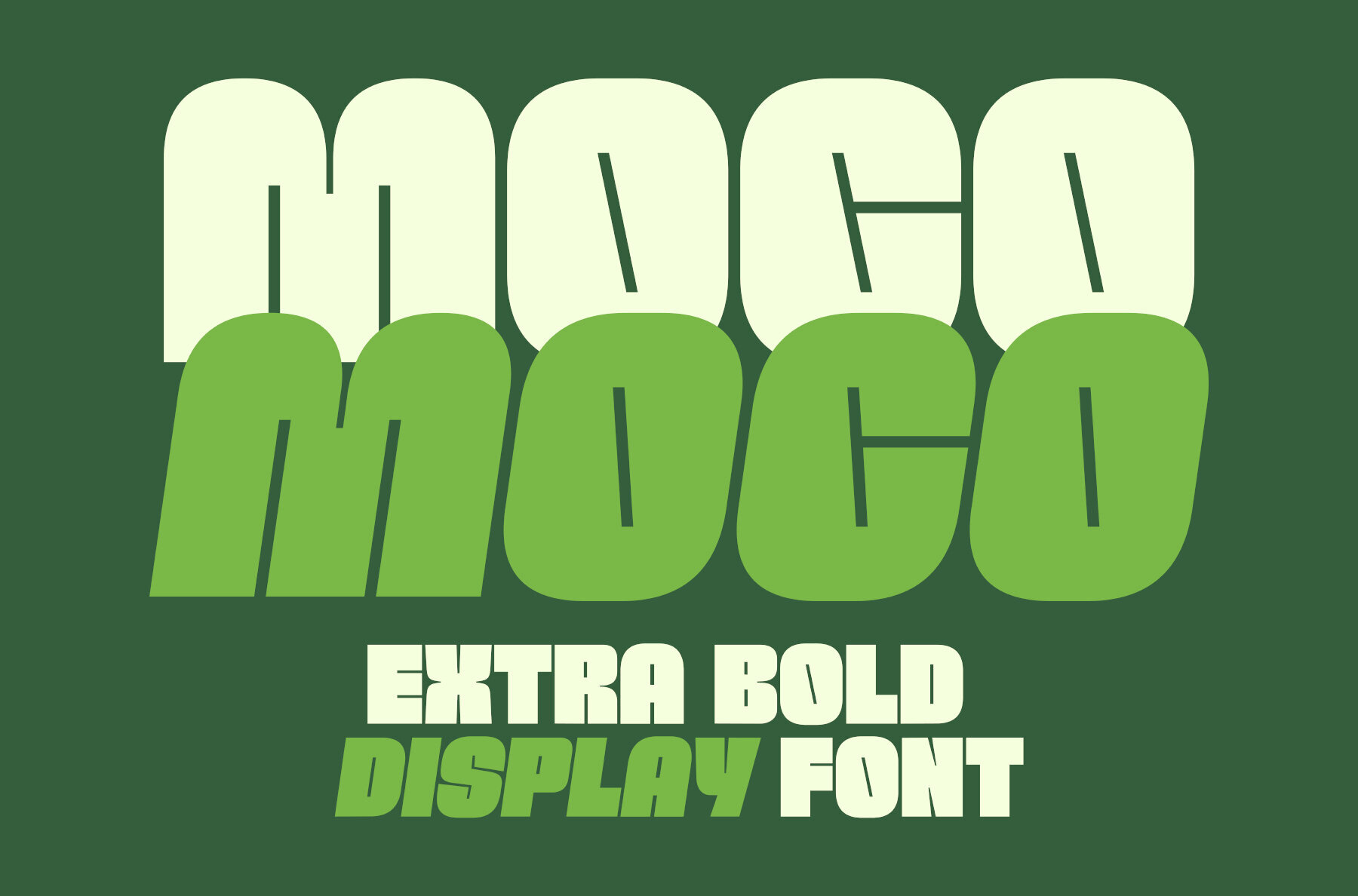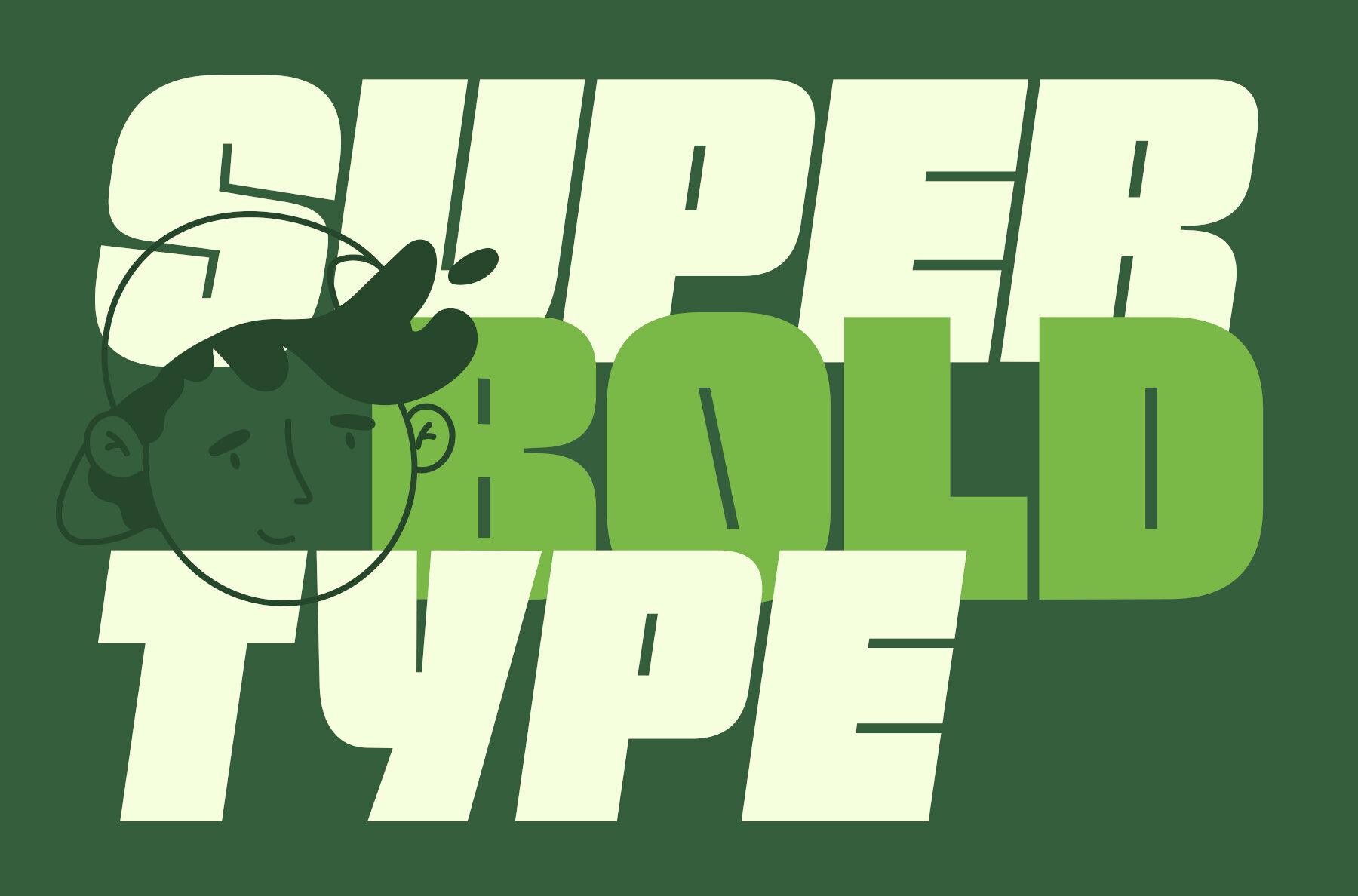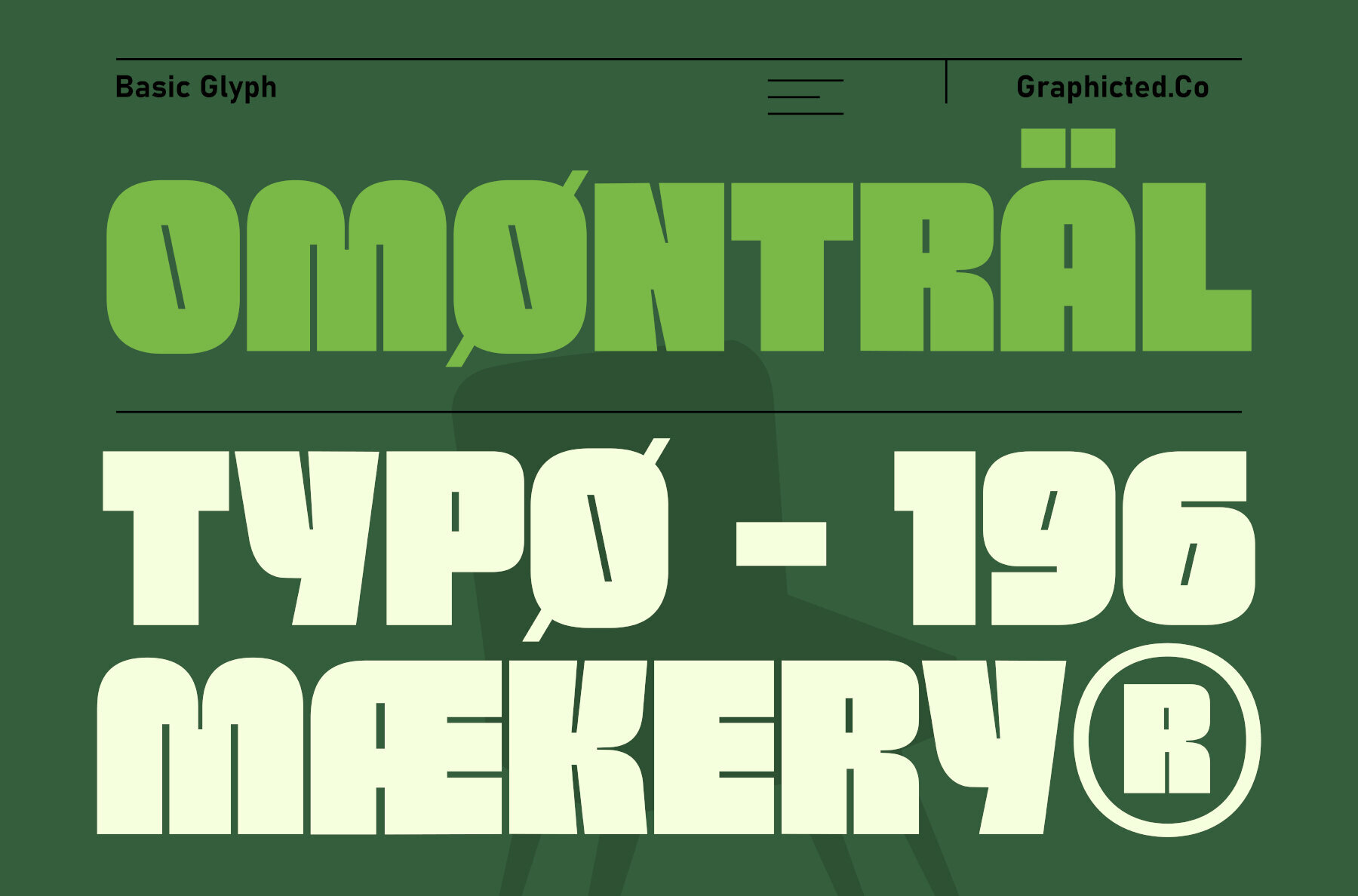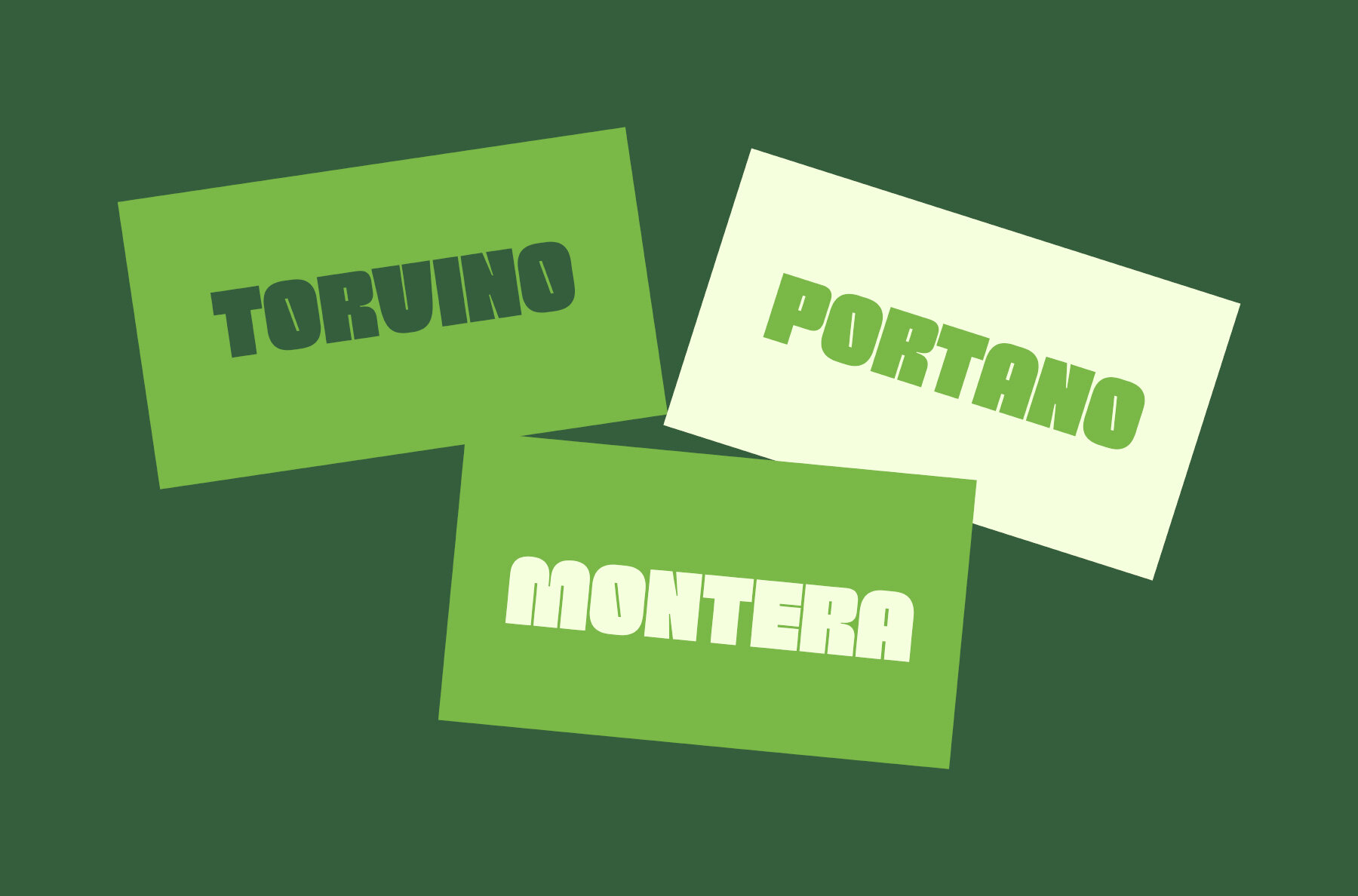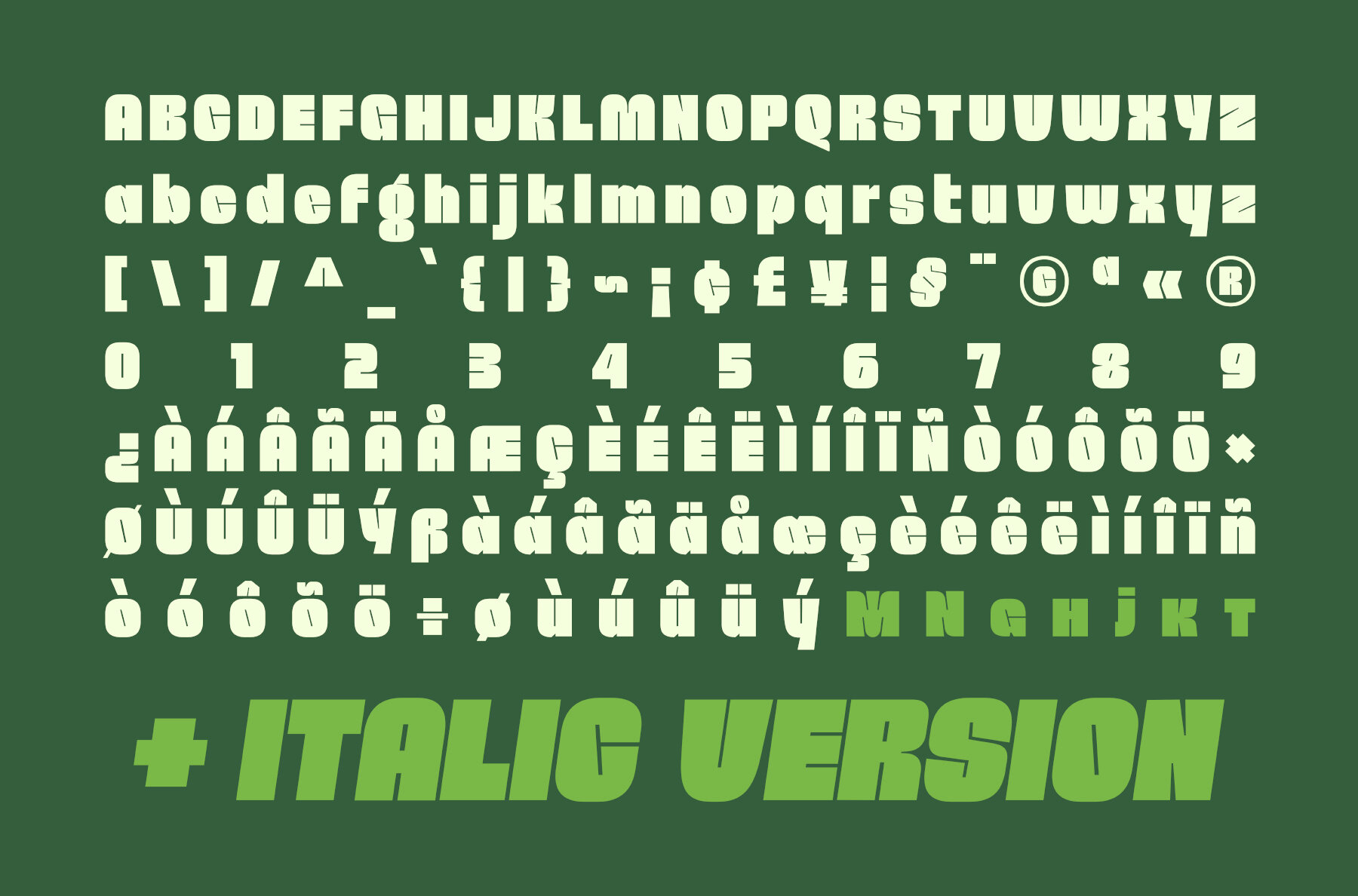
Moco Font
Moco is an extra bold display font crafted to command attention with every letter. Its smooth, rounded edges and solid geometric shapes combine for a look that balances strength with a playful modern-retro influence. Available in both Regular and Italic, Moco adapts seamlessly to diverse creative needs. This font excels in logos, posters, packaging, and headline applications—where clarity and style are essential. Moco’s carefully designed letterforms deliver boldness and character, ensuring your text makes a strong impression in both digital and print scenarios.Bold Style Meets Modern-Retro Appeal with Moco